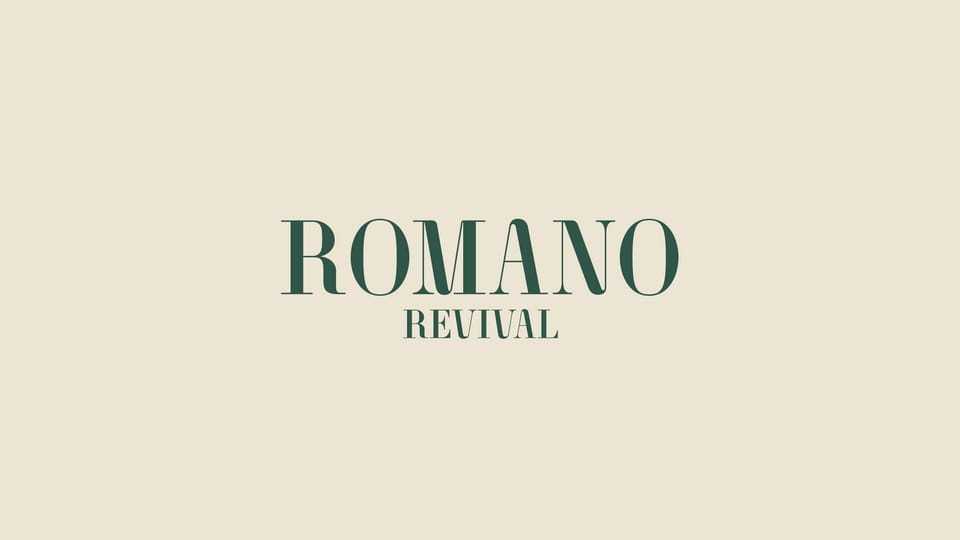
Download Romano Revival font, a serif typeface that features soft curved terminals, medium elegant tall proportions, and a refined vertical rhythm. It combines extremely thin hairlines with robust strokes.